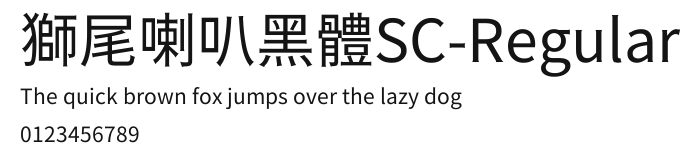
獅尾喇叭黑體SC-Regular.ttf
About 獅尾喇叭黑體SC-Regular.ttf
獅尾喇叭黑體SC-Regular.ttf is a modern, elegant sans-serif font designed for ultimate readability and visual harmony. Perfect for branding, headlines, web design, and print materials.